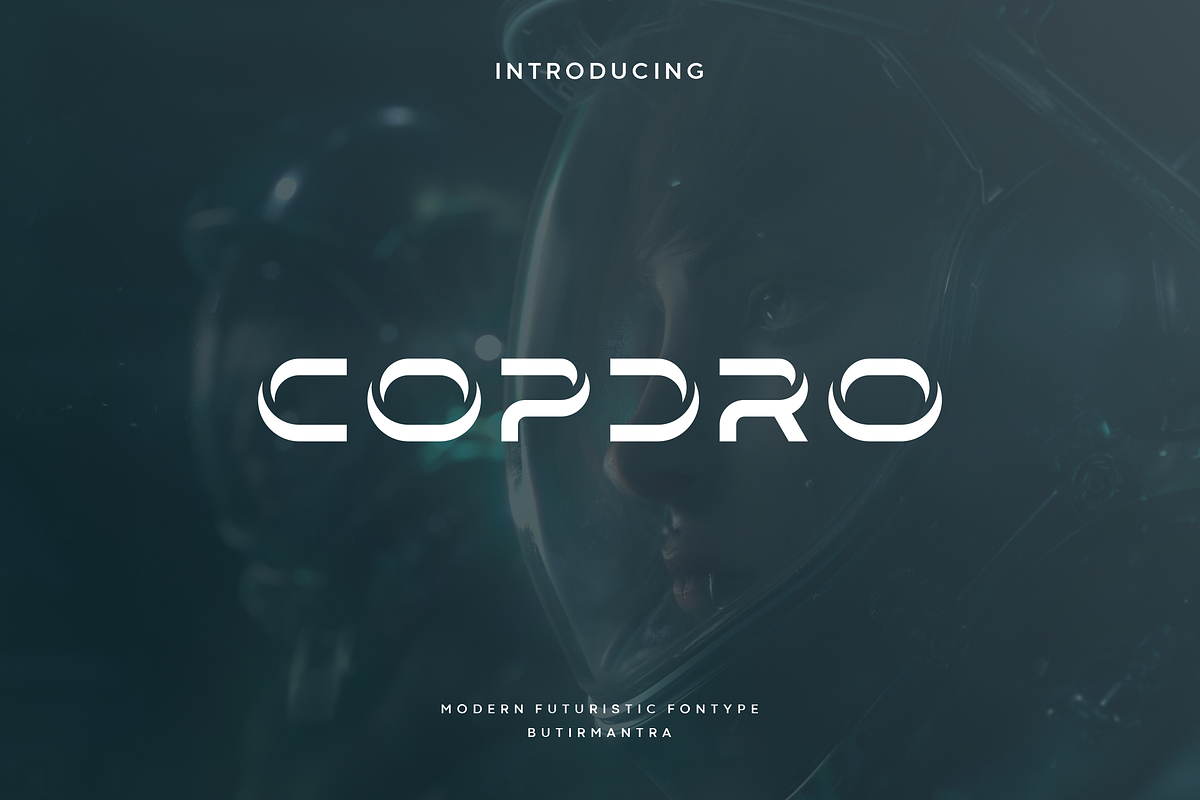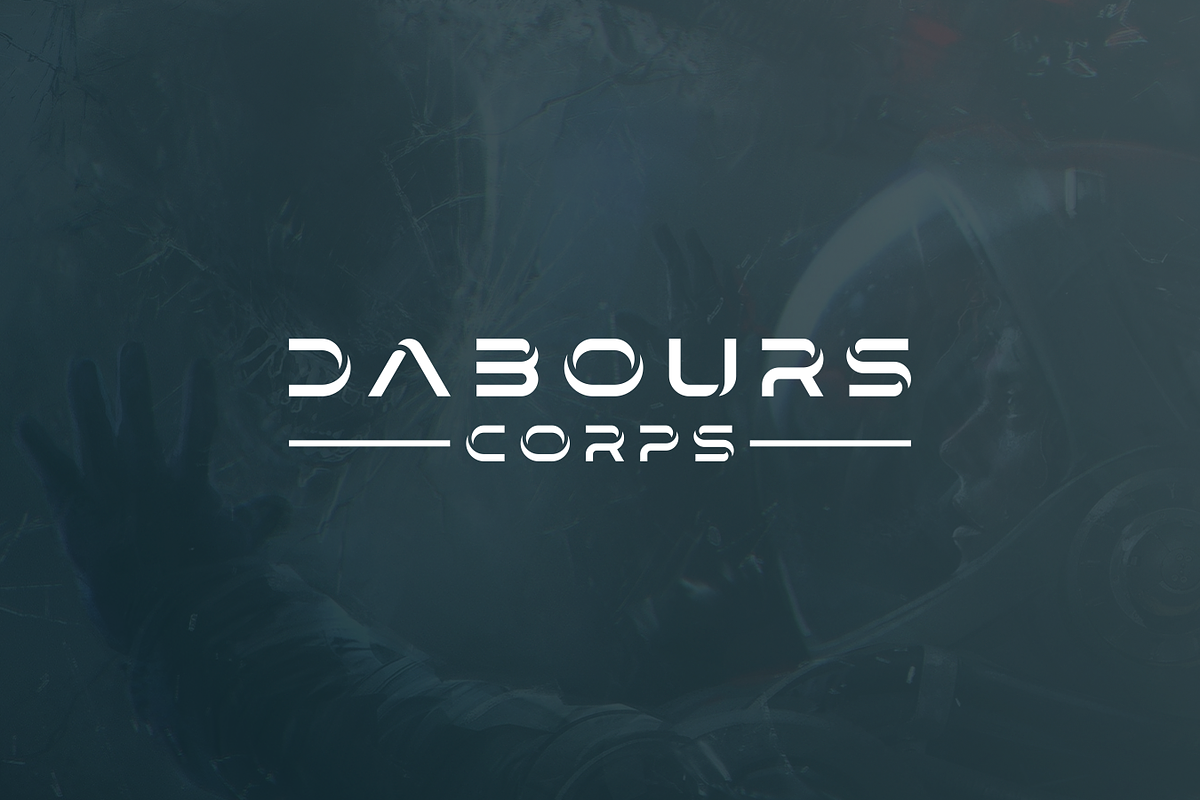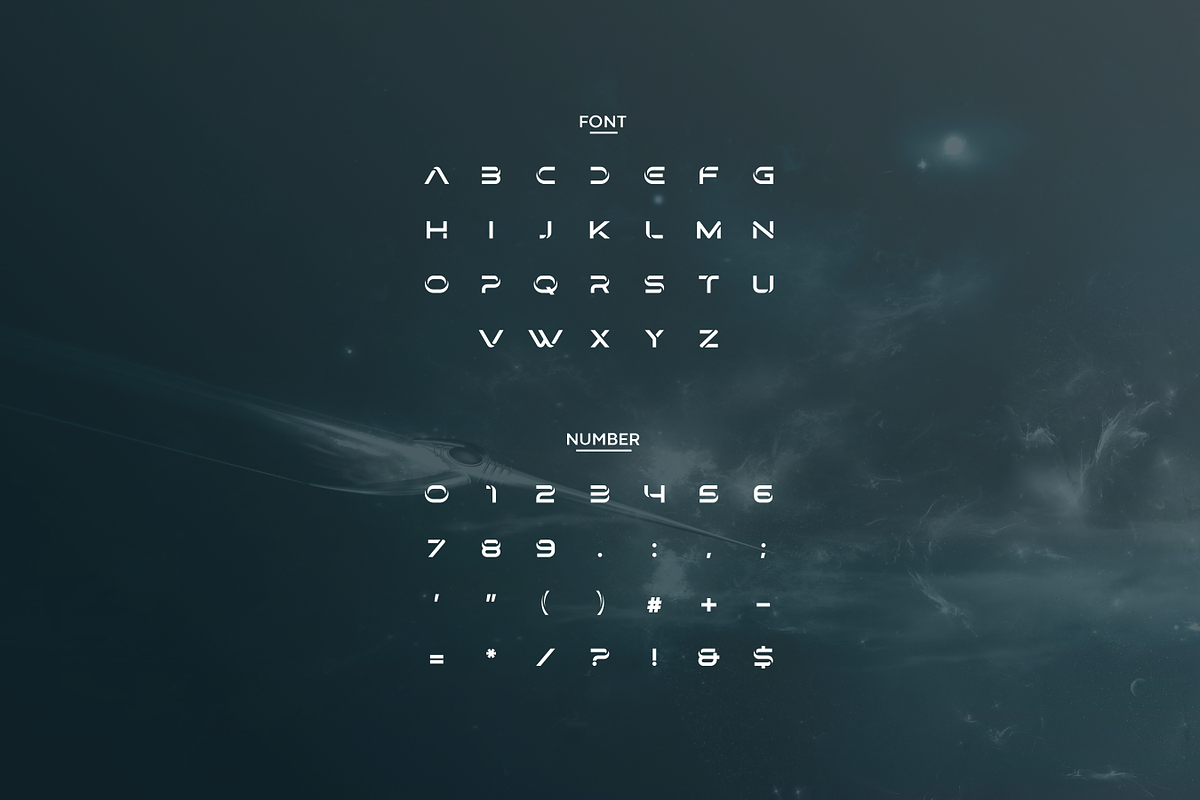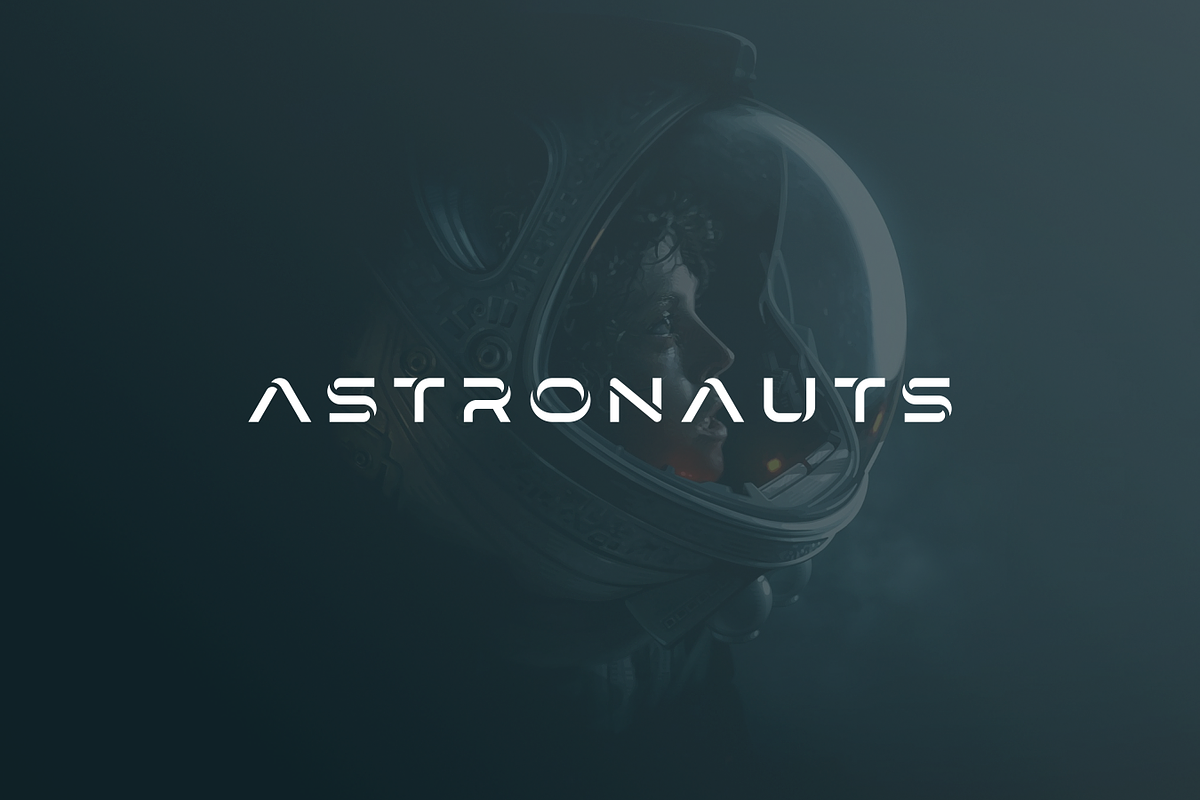
Copdro - Modern Futuristic Typeface
Copdro is a futuristic font, a font inspired by the visual of technology that we can find from logo, sci-fi movies, games, and the present gadgets. Designed with minimalist style and unique letterforms, a perfect choice to use on logos, labels, posters, packaging, books, movies, presentations, games, and much more! Copdro complete with some elegant touch that give your design looks more futuristic and dynamic.